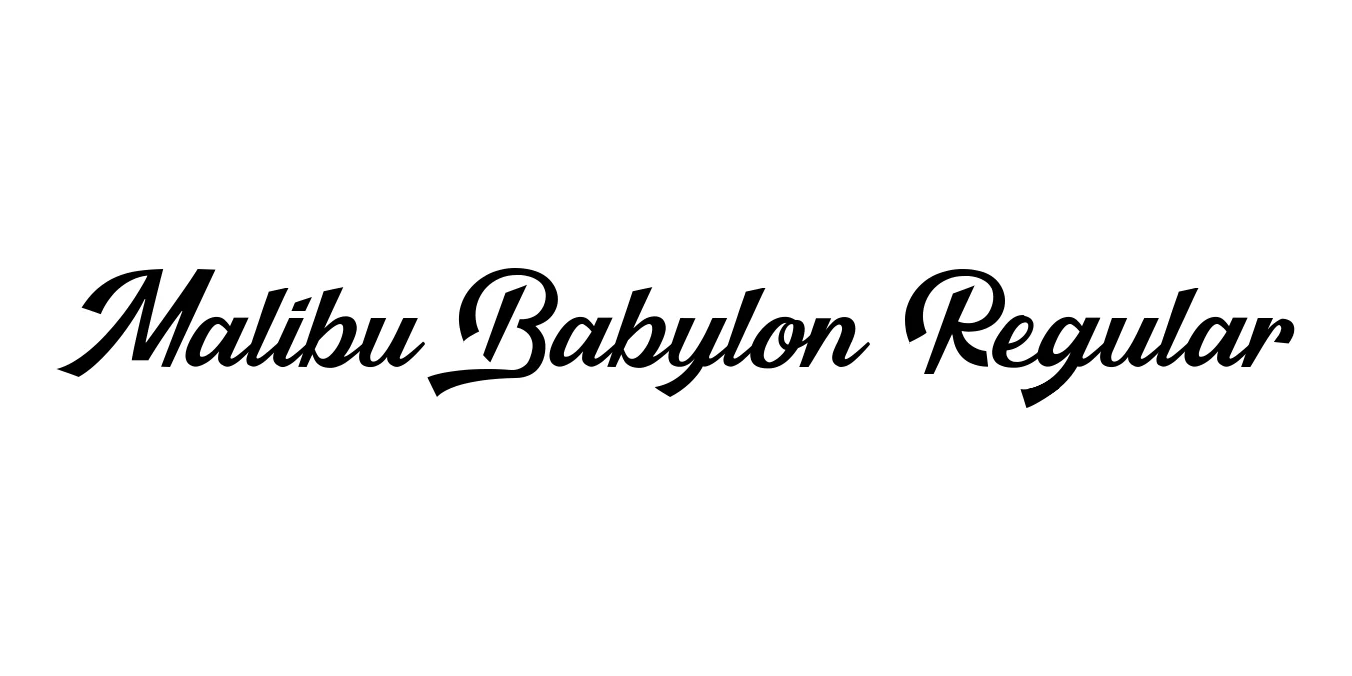
Malibu Babylon Regular
Designed by Zans Fonts
| Category | Script / Retro Display |
Malibu Babylon Regular is a vibrant and energetic brush script typeface that draws heavy inspiration from the sun-drenched aesthetics of 1980s surf culture and synthwave art. Its fluid, hand-drawn strokes convey a sense of motion and nostalgia, making it a favorite for designers looking to capture the iconic era of neon lights and seaside boardwalks.
The font features a consistent weight with expressive terminals that mimic the pressure of a physical brush pen. While highly stylized, Malibu Babylon maintains a high level of legibility for a script face, making it versatile for both large-scale headlines and medium-sized promotional text where a touch of vintage personality is required.
Malibu Babylon Regular Best Uses
Ideal for creating nostalgic logos for lifestyle and clothing brands.
Perfect for concert flyers and summer-themed event announcements.
Great for high-impact Instagram headers and YouTube thumbnails.
Excellent for t-shirt graphics and street-wear designs.